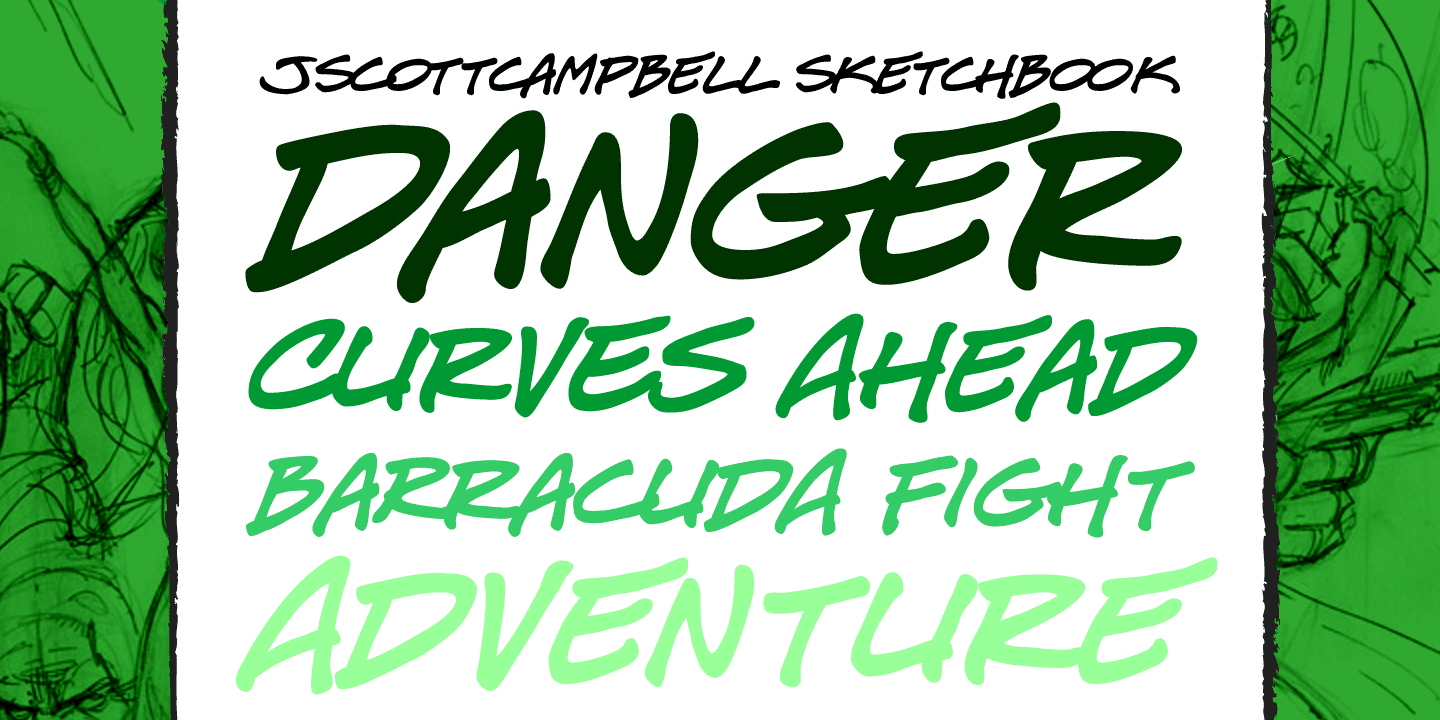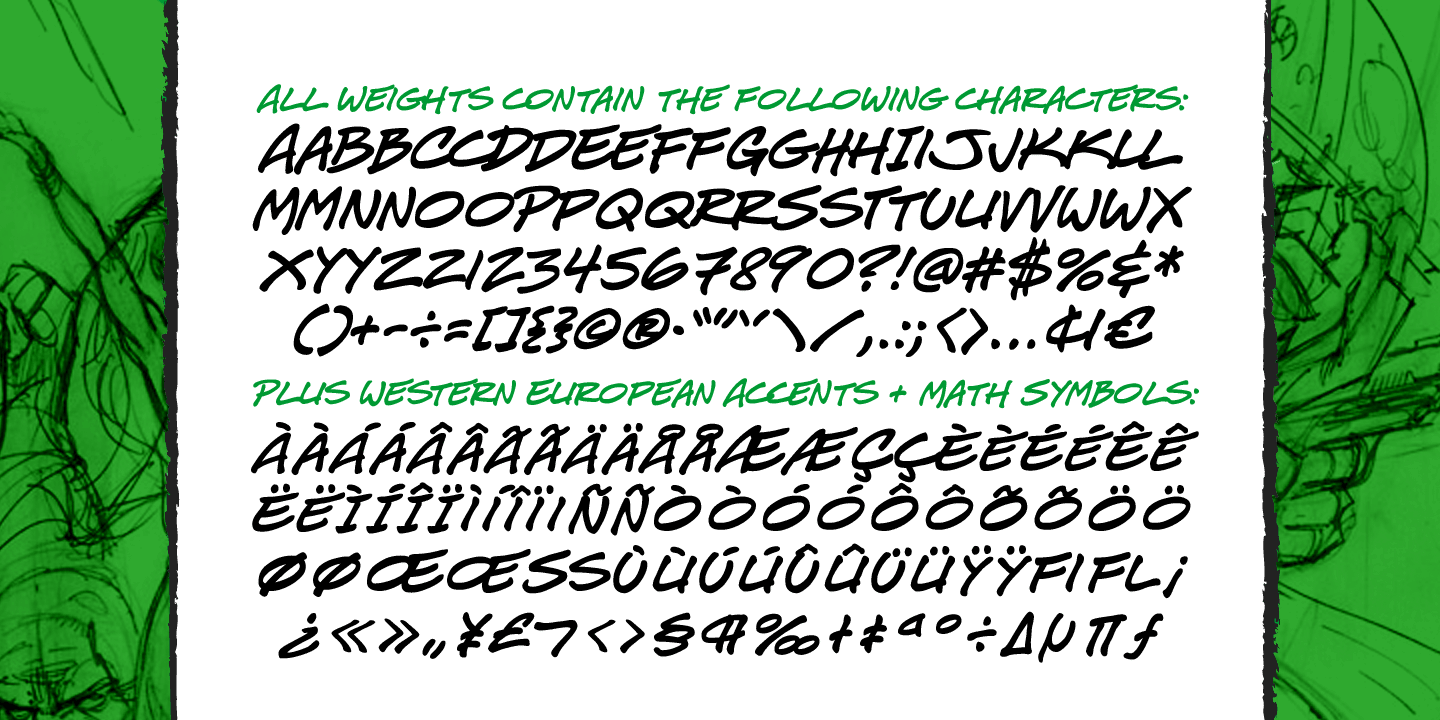
J Scott Campbell Sketchbook
Font Family by Comicraft Fonts
Created for J. SCOTT CAMPBELL'S DANGER GIRL SKETCHBOOK, this slick and stylish font is perfect for architectural drawings, marker comps or, um, sketchbooks!
Artwork from Elephantmen: Man and Elephantman by J. Scott Campbell